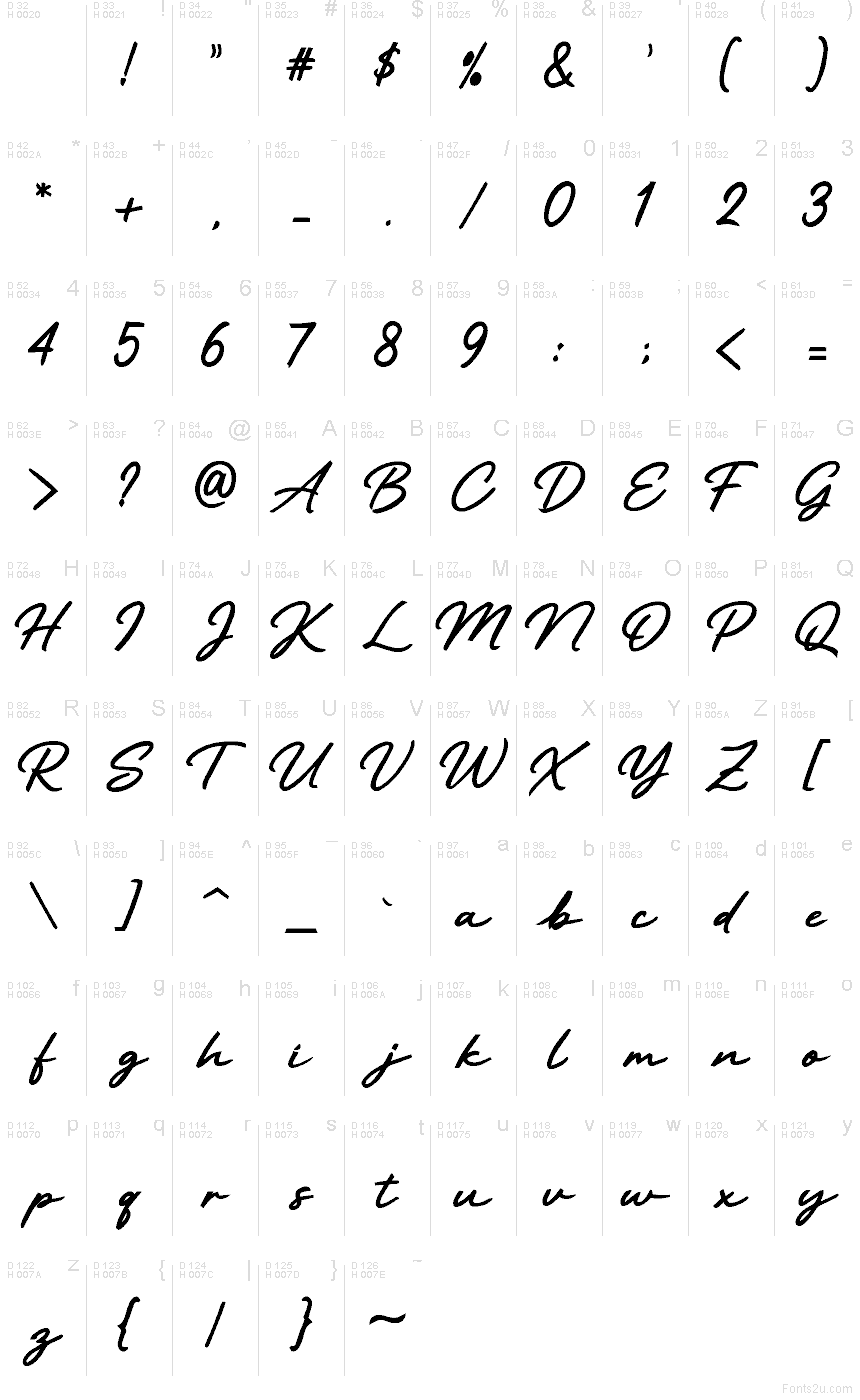
Starlight Romance
Starlight Romance font by BlackFridayFont FMF is a free handwritten script typeface with the easy sweep of a felt-tip pen and the warmth of personal notes. Its letters link in smooth, flowing strokes, with just enough slant and texture to feel intimate without becoming messy, giving your text that “written in one confident breath” quality.
Using Starlight Romance, your designs shine on wedding invitations, save-the-dates, anniversary cards, packaging for beauty or handmade goods, brand signatures, and romantic social media graphics. This free font carries emotion even at smaller sizes, but truly sings when you scale it up for headings and names; pair it with a clean sans serif for supporting text to keep the handwritten charm in the spotlight.